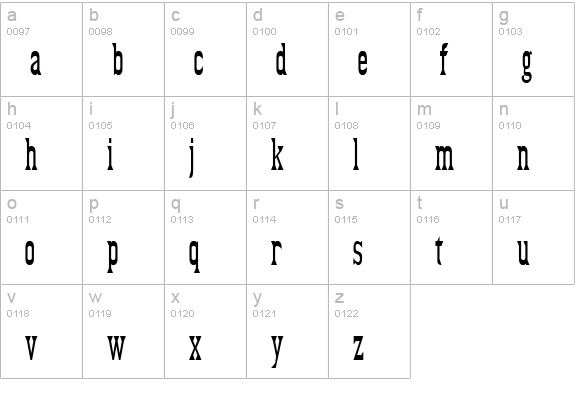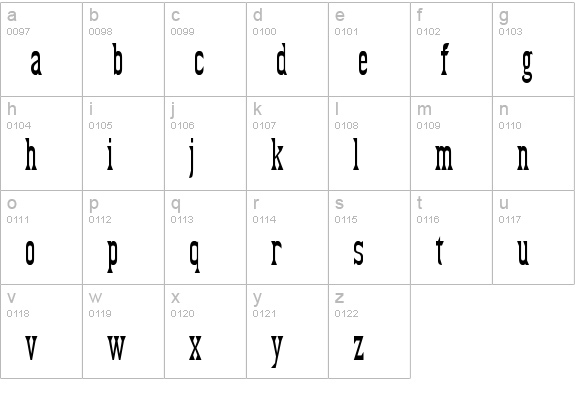
Fezdaz Font Details
Fezdaz font is a beautifully crafted typeface that exudes elegance and sophistication. With its unique blend of modern and classic elements, Fezdaz font is perfect for a wide range of design projects, from branding to editorial design. Its clean lines and sharp angles give it a contemporary feel, while its subtle curves add a touch of warmth and personality. Fezdaz font is available for free download at FontsMarket.com, making it accessible to designers and creatives looking to add a touch of style to their projects without breaking the bank. Whether you're working on a logo, website, or print design, Fezdaz font is sure to make a lasting impression with its timeless appeal and versatility. Download Fezdaz font today and elevate your designs to the next level.